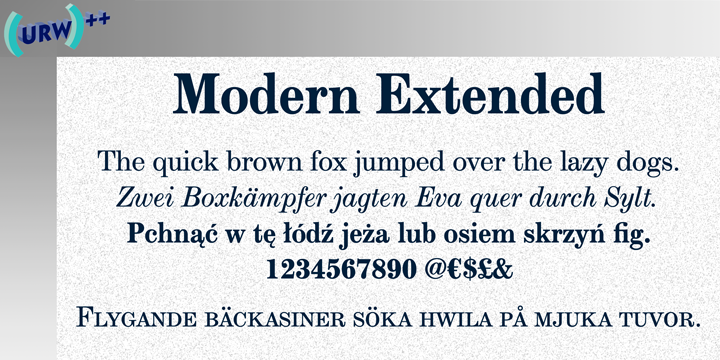
Modern Extended Font is perfect for contemporary corporate branding, sleek technology interfaces, modern architectural signage, progressive business presentations, cutting-edge fashion magazines, innovative startup communications, and forward-thinking digital platforms.
What makes Modern Extended Font exciting is its expansive contemporary vision that stretches the boundaries of traditional typography to create bold, space-commanding letterforms that project confidence and modern sophistication across any design landscape. The strategically crafted wide characters showcase geometric precision with extended proportions that immediately capture attention and communicate progressive thinking, innovative approaches, and the kind of forward-momentum that defines industry leaders. This remarkable typeface embodies contemporary excellence, expansive thinking, and modern authority, making it the perfect choice for brands and organizations that refuse to be constrained by conventional limitations and instead embrace the limitless possibilities of contemporary design.
The Modern Extended Font family includes comprehensive weight range from Thin to Black, with matching italic styles for complete design versatility. The extensive character set features contemporary symbols, modern numerals, progressive punctuation marks, and cutting-edge ornaments that enhance the sophisticated modern aesthetic across all corporate and technological design applications.
Progressive designers and contemporary brands seeking Modern Extended Font Free Download will discover unlimited potential for creating commanding, future-focused communications. This outstanding typeface transforms standard business text into compelling visual statements that immediately communicate innovation, reliability, and contemporary leadership. Whether you're designing tech company identity systems, creating modern corporate presentations, developing progressive marketing campaigns, or crafting cutting-edge digital experiences, this font delivers exceptional results that establish market presence and project the kind of contemporary confidence that attracts forward-thinking clients and positions brands at the forefront of their industries.
The strategically optimized letter spacing and extended proportions make Modern Extended Font remarkably effective across both intimate business applications and large-scale contemporary displays. Its expansive character ensures maximum impact and visibility in competitive modern markets while maintaining excellent readability for professional communication needs. From startup pitch presentations to Fortune 500 headquarters, this font consistently delivers the contemporary excellence that defines progressive business leadership.